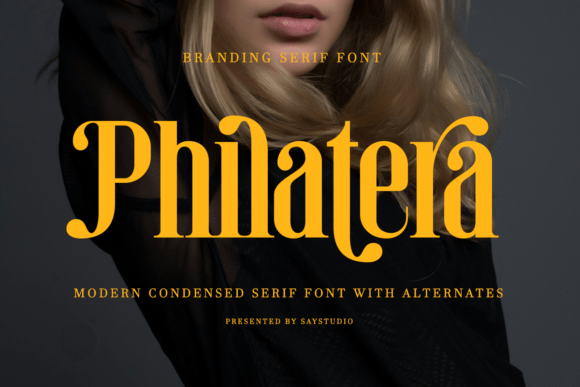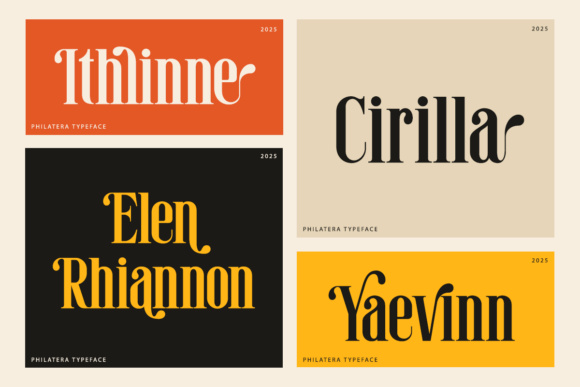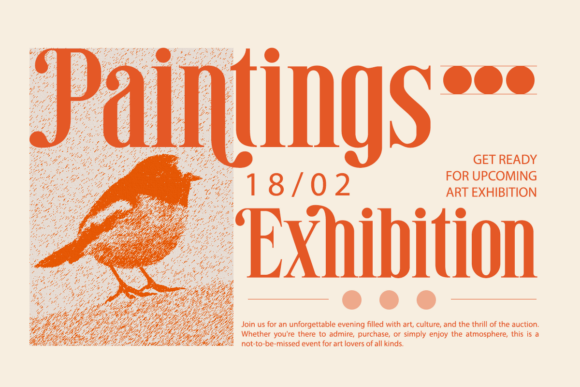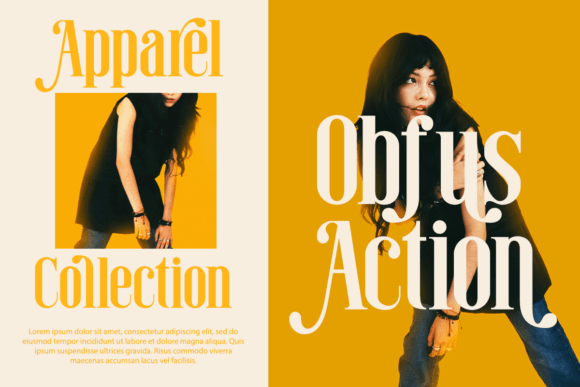
Philatera Font: Elegant Condensed Serif for Modern Logo Design & Typography
About the Philatera Font
Introducing the Philatera Font, a beautifully crafted typeface designed to elevate your creative projects. Philatera – a revival of a condensed serif font that will give you incredible flexibility, but I honestly can’t get over the tight caps. This font is just too good with character alternates that add a unique twist to any project.
Philatera is a beautiful, nostalgic uppercase and lowercase typeface that works best as primary display text (think logos, headlines, beautiful quotes, calls to action, etc.
Its condensed nature and strong character make Philatera ideal for headlines, logos, and short impactful statements in branding materials and posters. The unique character alternates add visual interest without sacrificing readability in these contexts. However, avoid using it for body text or long paragraphs; its condensed design would strain readability.
Philatera’s personality is bold and confident yet retains a touch of classic elegance due to its serif style. It’s perfect for brands aiming for a sophisticated yet assertive image—think high-end fashion, premium spirits, or architectural firms.
Pairing Philatera works best with clean sans-serif fonts like Open Sans or Lato for body copy, providing a strong contrast and visual balance. For a more playful feel, consider a handwritten script like Pacifico for secondary elements, while a geometric sans-serif like Montserrat could offer a modern counterpoint.